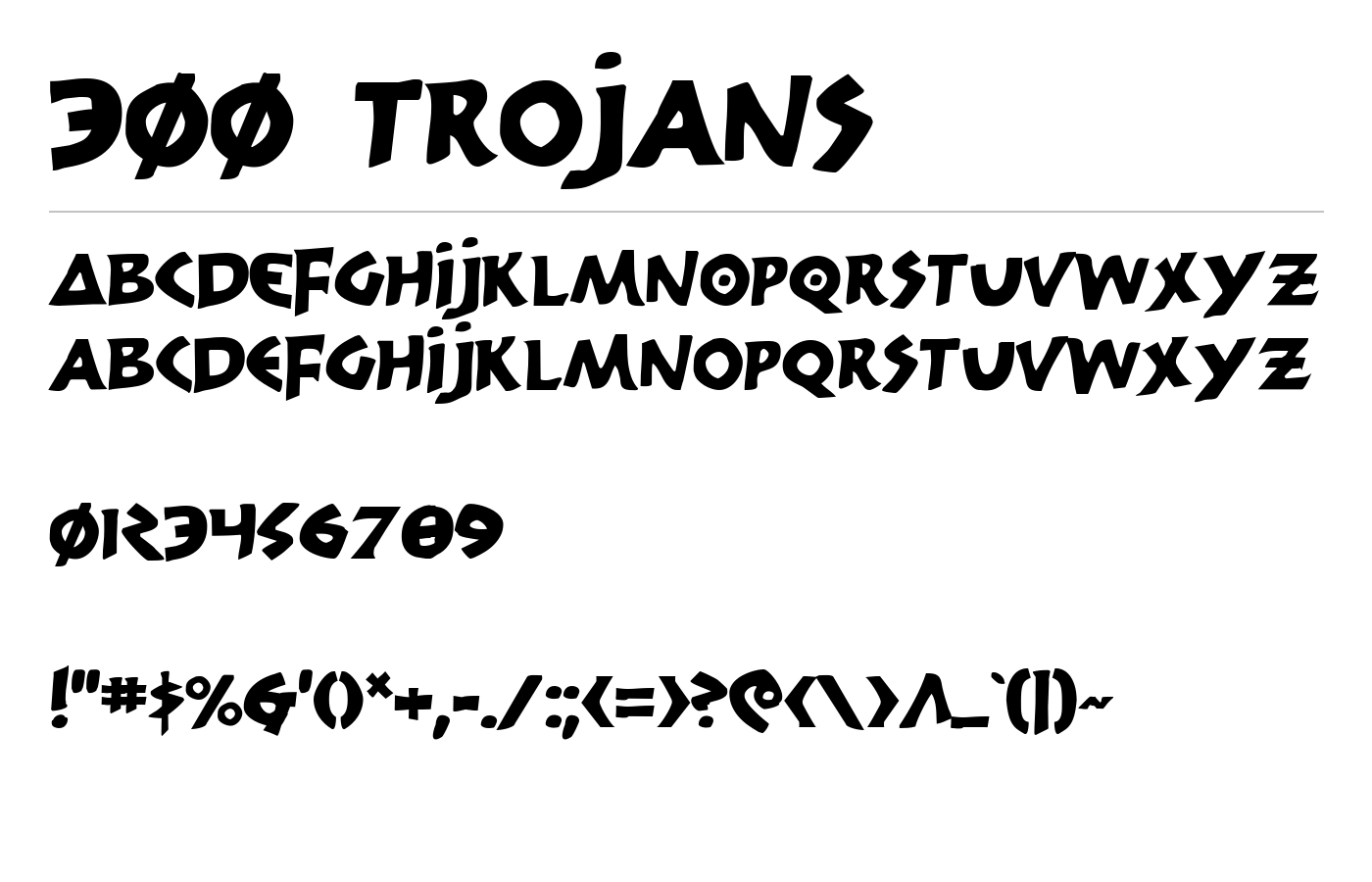
300 Trojans is a bold, playful display font with a distinctly hand-drawn, tribal feel reminiscent of ancient inscriptions. Its irregular, angular letterforms and high contrast strokes give it an energetic and dynamic personality, making it perfect for headlines, logos, and designs that want to evoke strength and adventure. This font works especially well for themes involving mythology, fantasy, or anything seeking a bold, spirited statement.
300 Trojans Font
About 300 Trojans Font